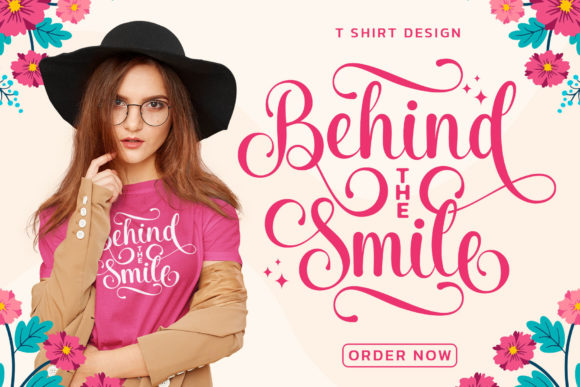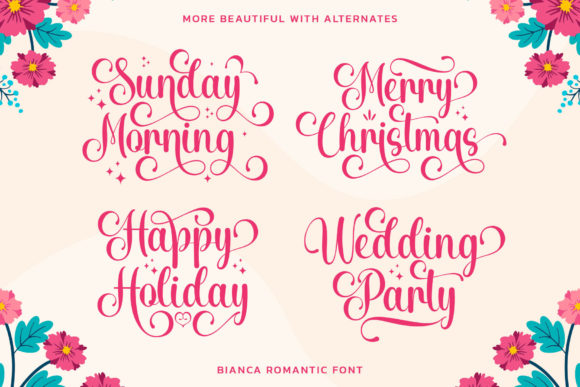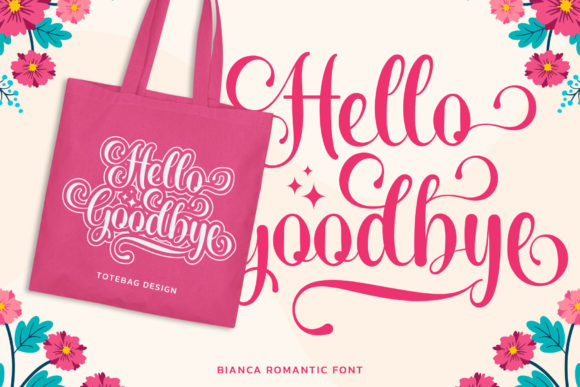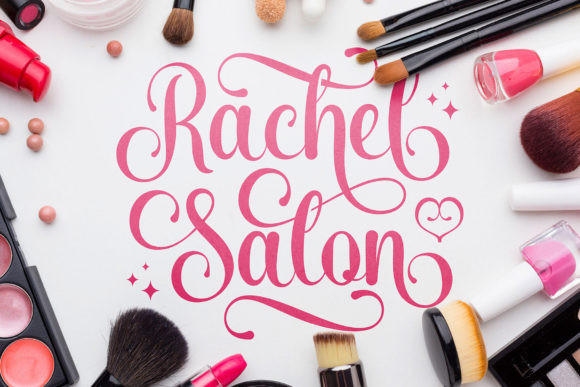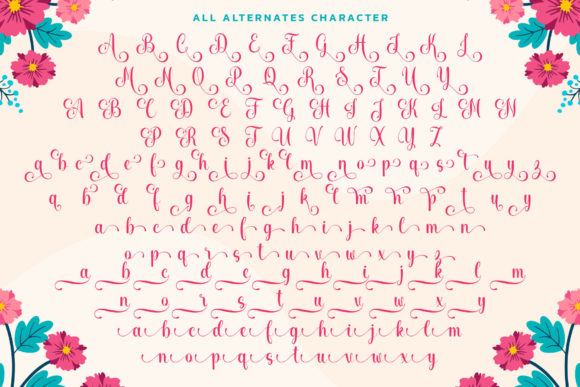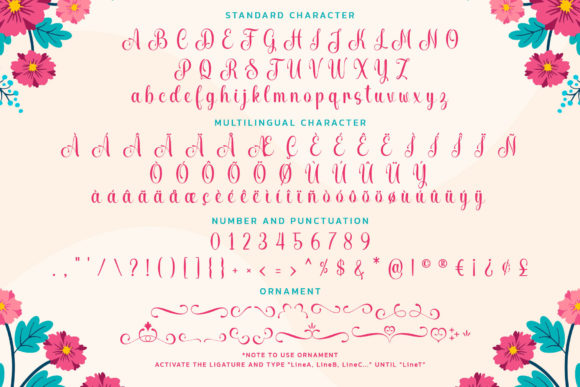
The Perfect Script Font for Your Next Creative Project
As a designer, there’s nothing quite like the thrill of discovering a new font that sparks inspiration and sets your creative juices flowing. For me, that moment came when I stumbled upon the beautiful Bianca Romantic Font Font – a script font that exudes elegance, sophistication, and a touch of whimsy. Its unique, modern design makes it perfect for a wide range of applications, from logos and branding to invitations and wedding designs.
With its PUA encoded features, accessing all the glyphs and swashes is a breeze, giving you the freedom to get creative and experiment with different styles and combinations. Whether you’re a seasoned designer or just starting out, the Bianca Romantic Font Font is an invaluable addition to your toolkit. Its versatility and beauty make it a must-have for anyone looking to elevate their designs and stand out from the crowd.
Bianca Romantic Font Key Features
- Unique Characteristics: Elegant, cursive script with a touch of romance, perfect for wedding invitations, love letters, and other special occasions
- Font Weight: 7 font weights ranging from light to bold, allowing for versatility in design
Bianca Romantic Font Review
Overall, I’m impressed with the Bianca Romantic Font for its unique aesthetic and romantic charm. ✨ The font’s cursive script and flowing lines make it perfect for wedding invitations, love letters, or any other design project that requires a touch of whimsy and elegance. ✨ The font’s versatility also allows it to be used in a variety of contexts, from digital media to print materials.
- ✨ Unique and romantic aesthetic
- ✨ Versatile and can be used in various contexts
- ✨ Perfect for wedding invitations, love letters, or any other design project that requires a touch of whimsy and elegance
- ⚠️ Limited font sizes and styles available
- ⚠️ May not be suitable for formal or corporate designs
- ⚠️ Requires careful use to avoid clutter and readability issues
In conclusion, the Bianca Romantic Font is a great choice for designers who want to add a touch of romance and elegance to their projects. While it has some limitations, its unique aesthetic and versatility make it a valuable addition to any design toolbox.
The Bianca Romantic Font is perfect for creating romantic and elegant designs, such as:
- Love letters and poetry
- Valentine’s Day and anniversary cards
For the most beautiful results, pair the Bianca Romantic Font with soft colors, floral patterns, and delicate graphics.